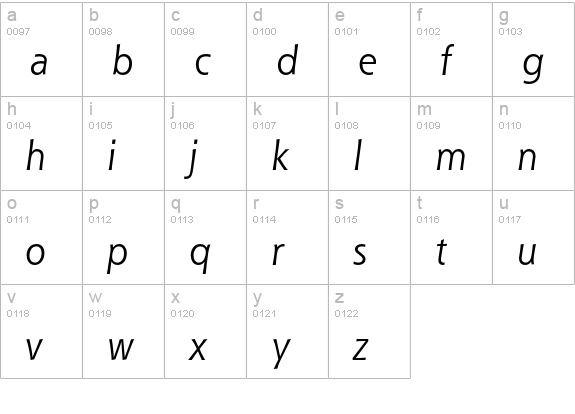
Shannon Std Oblique Font Details
Shannon Std Oblique is a distinctive, italic variant in the Shannon typeface family \xE2\x80\x94 well suited to design and typography projects.
Shannon Std Oblique font is a visually stunning typeface that exudes elegance and sophistication. Its unique oblique design adds a touch of modernity to any project, making it the perfect choice for those looking to make a bold statement. The slanted letterforms create a sense of movement and dynamism, adding an extra layer of interest to your designs. With its clean lines and sleek curves, Shannon Std Oblique font is incredibly versatile and can be used in a variety of applications, from branding and advertising to editorial design and web content. Whether you're creating a logo, designing a website, or crafting a brochure, this font will surely elevate your work to new heights of professionalism. But what truly sets Shannon Std Oblique font apart is its accessibility. This font is freely available to download at FontsMarket.com, allowing you to incorporate its beauty into your projects without breaking the bank. With just a few clicks, you can have this stunning typeface at your fingertips, ready to enhance your creative endeavors. So why wait? Download Shannon Std Oblique font today and let its sleek and contemporary design elevate your designs to new levels of sophistication. Whether you're a professional designer or a passionate hobbyist, this font is sure to become an invaluable tool in your creative arsenal. Don't miss out on the opportunity to add a touch of elegance to your projects – get Shannon Std Oblique font now and see the difference it can make.